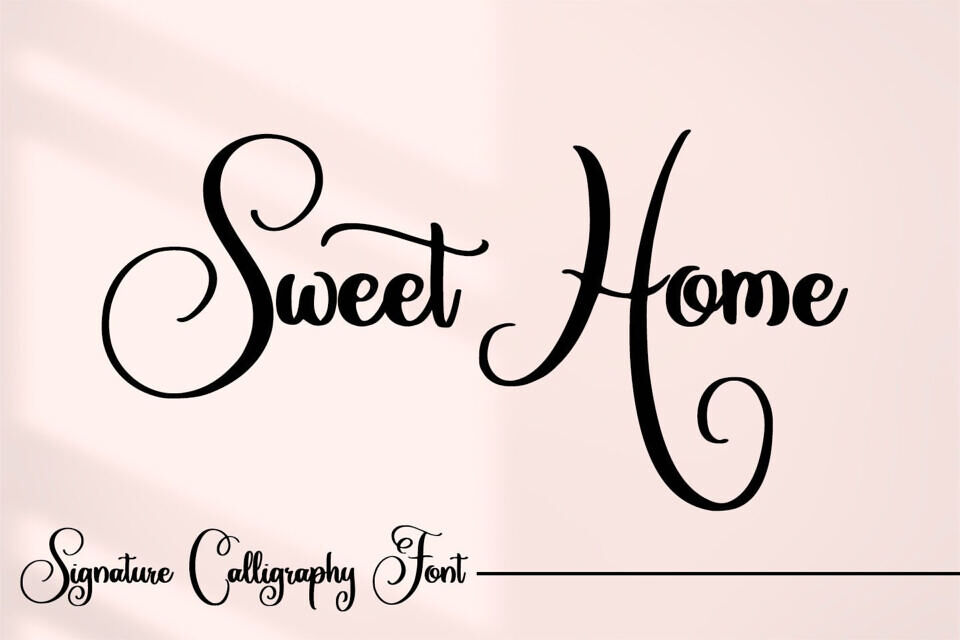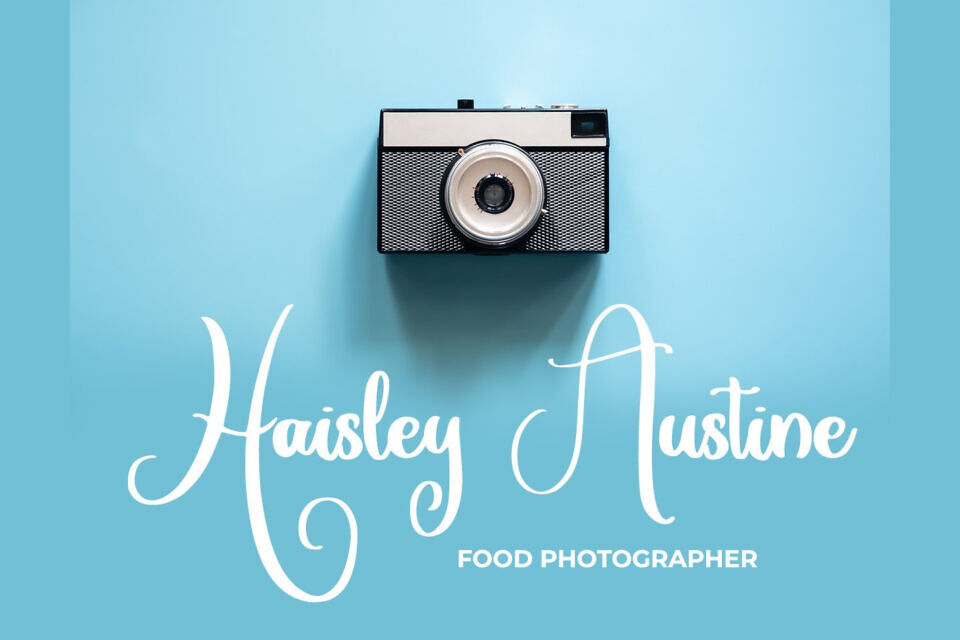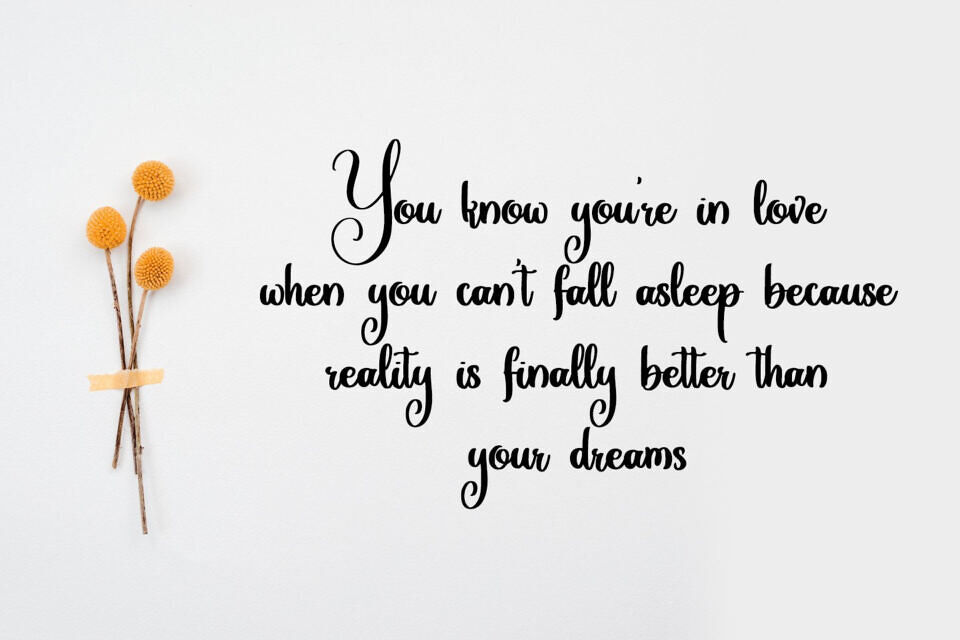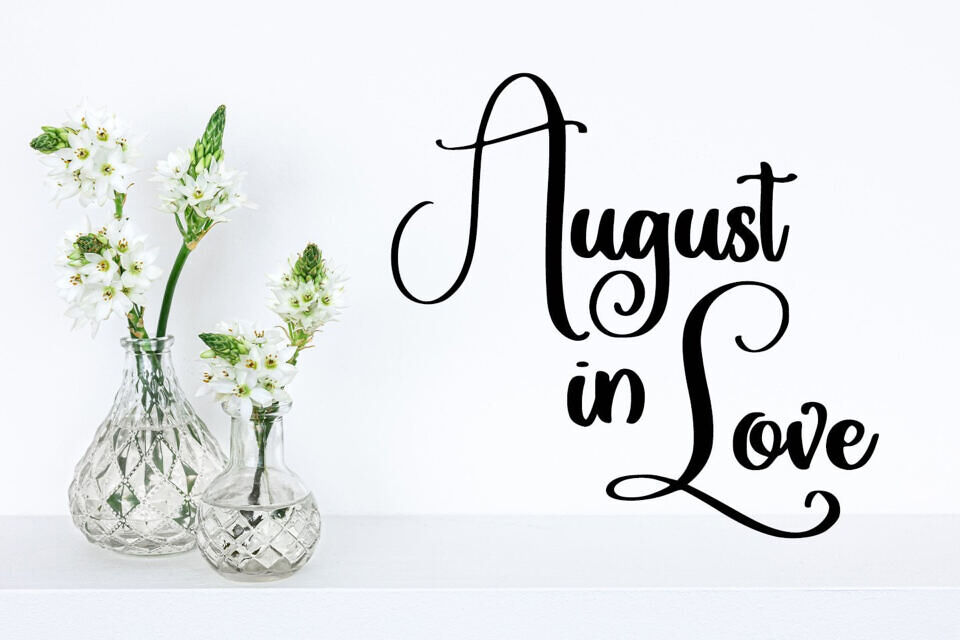
Sweet Home is a cute calligraphy font. It is great for logos, quotes, mugs, tote bag designs, t-shirt designs, cards, banners, social media, and anything of your projects.